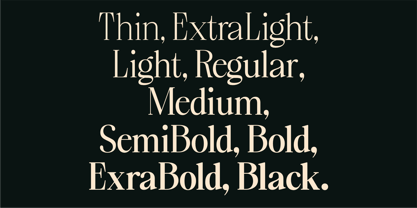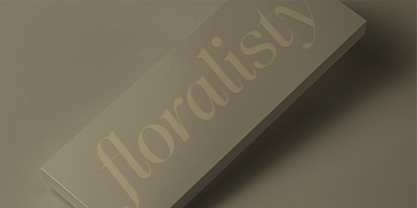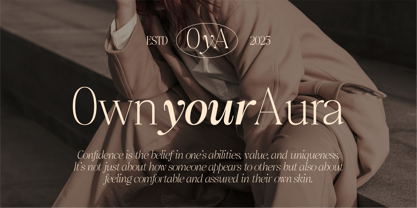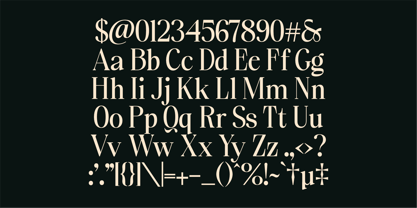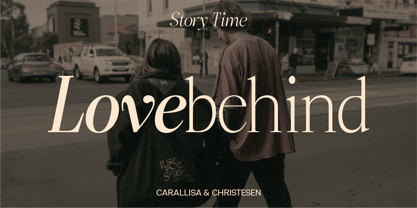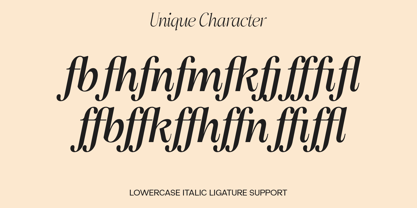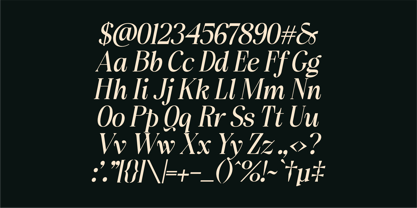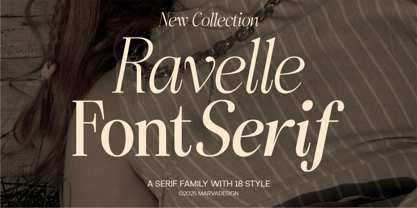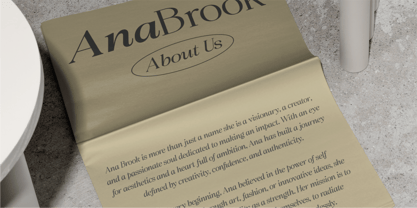
Ravelle
by Marvadesign
The Ravelle Font Family was designed by Febrie Setiawan and published by Marvadesign. Ravelle contains 18 styles and family package options. More about this family
Introducing New Family Serif Font Ravelle Font Serif is an elegant and sophisticated serif typeface that combines classic design with modern aesthetics. It features a graceful balance of thick and thin strokes, delivering a refined and timeless appearance. This font family includes a variety of weights ranging from Thin to Black, offering versatility for diverse design applications.
Characterized by subtle curves and sharp serifs, Ravelle exudes a sense of luxury and professionalism. Its high contrast and delicate details make it suitable for editorial designs, branding, invitations, and other premium projects. The font's stylish and expressive nature enhances readability while maintaining a distinctive visual appeal.
With 18 different styles, Ravelle provides flexibility in creating unique typographic compositions, making it an ideal choice for designers seeking both elegance and functionality.
Designers: Febrie Setiawan
Foundry: Marvadesign